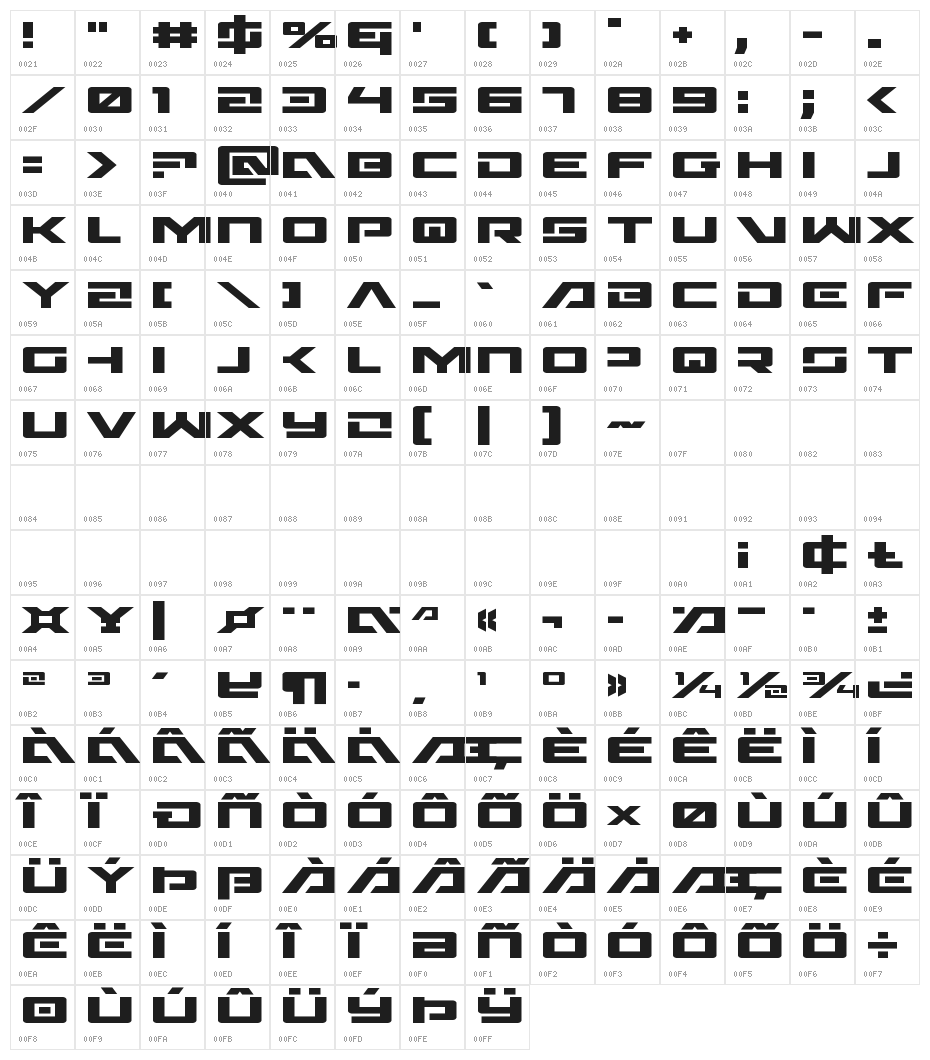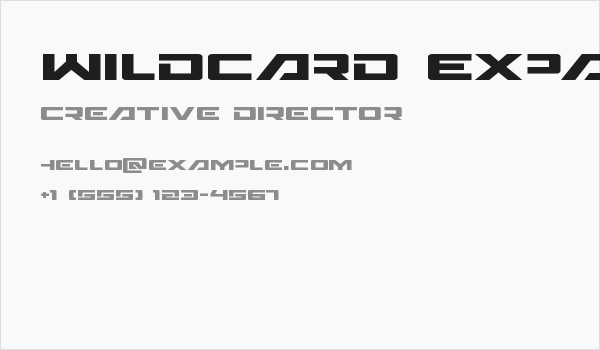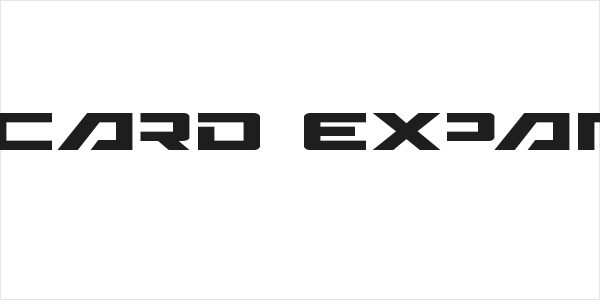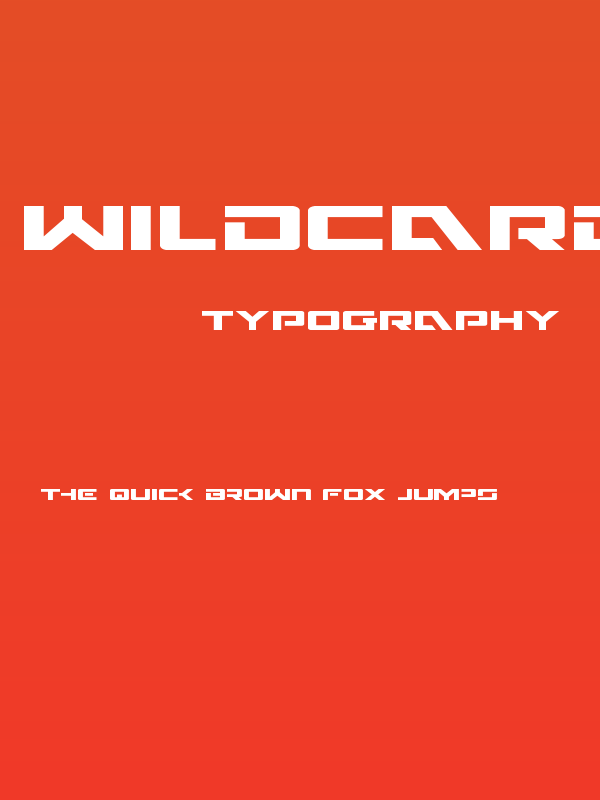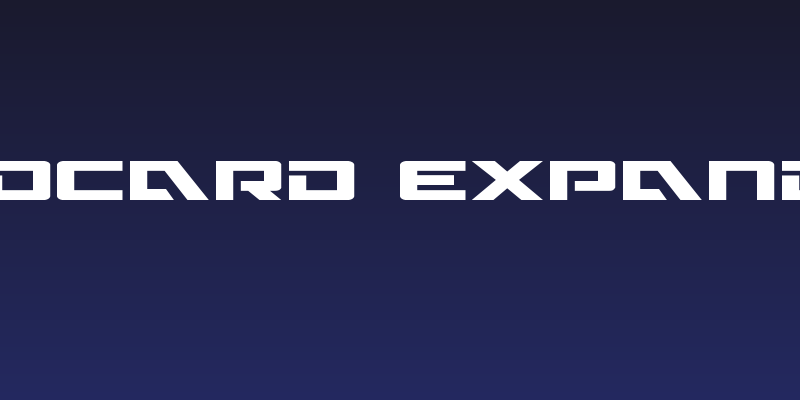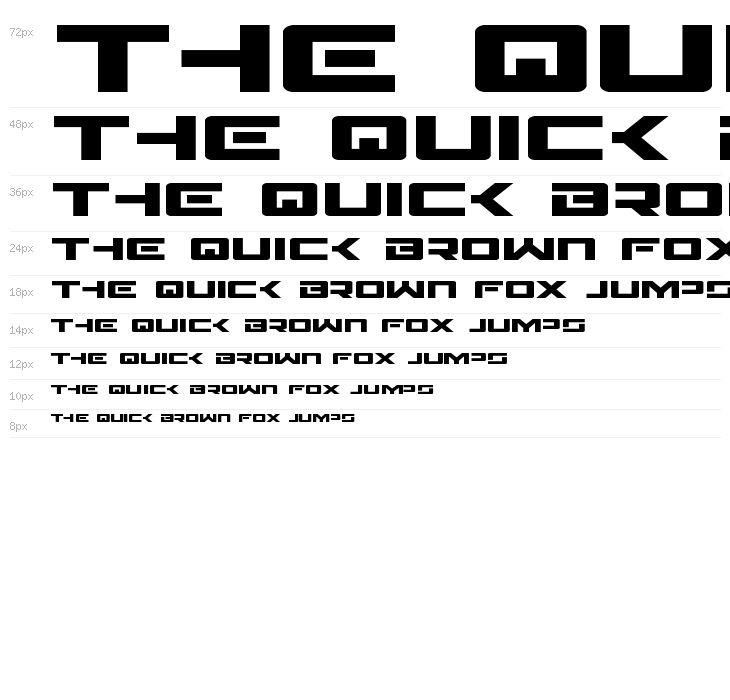
Wildcard Expanded Font
Wildcard Expanded Description
This font features a bold, geometric design with a futuristic and digital aesthetic. The characters are constructed with sharp angles and straight lines, giving them a blocky and robust appearance. The uppercase and lowercase letters maintain a consistent style, with some characters incorporating unique cutouts and angular elements that add to the modern feel. The numerals and special characters follow the same design principles, ensuring uniformity across the typeface. This font is highly legible and makes a strong visual impact, suitable for attention-grabbing applications.